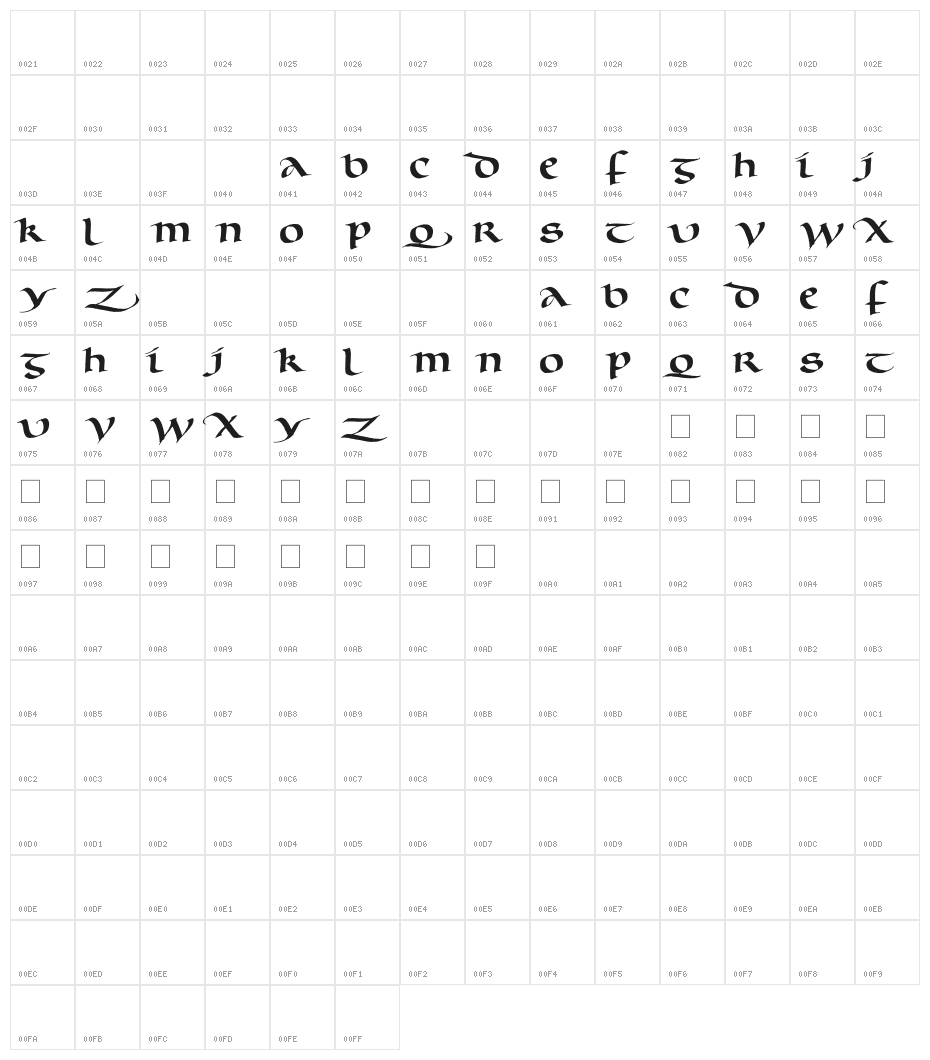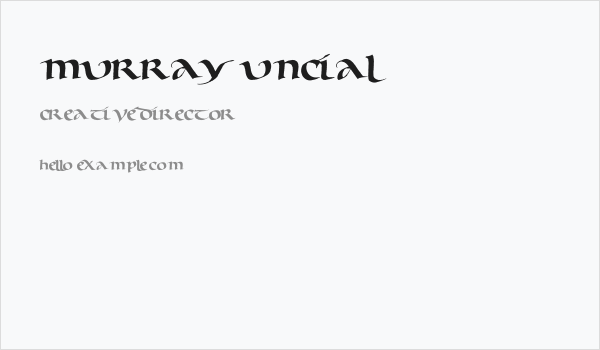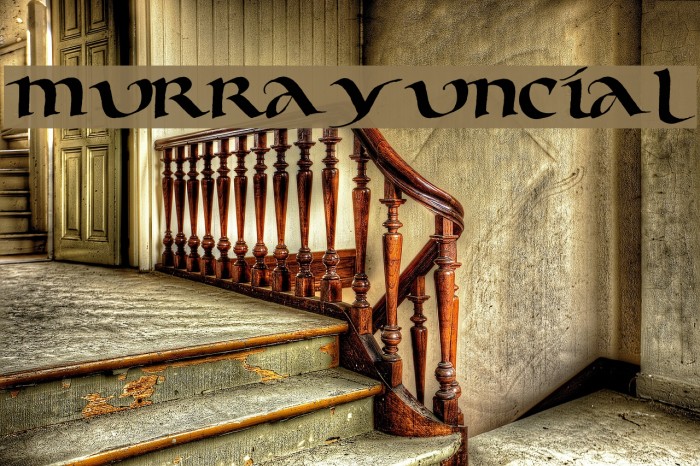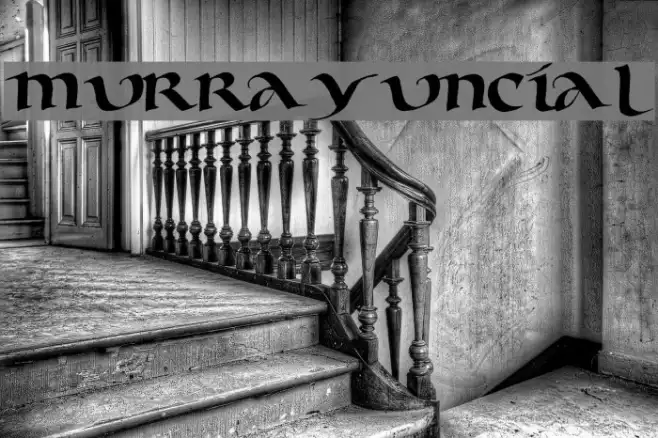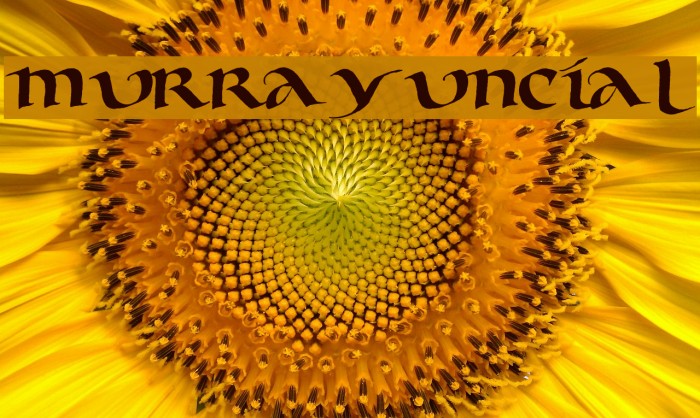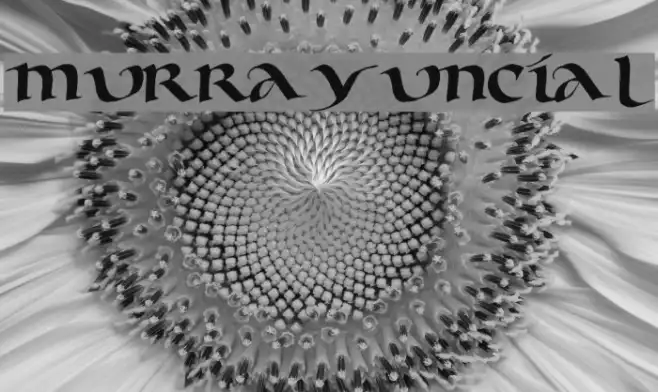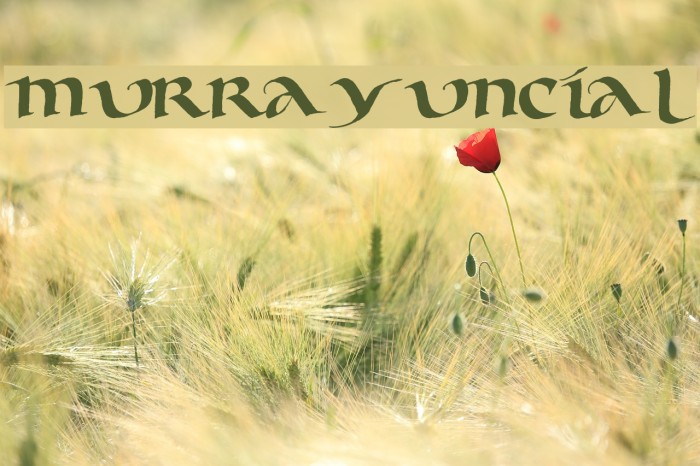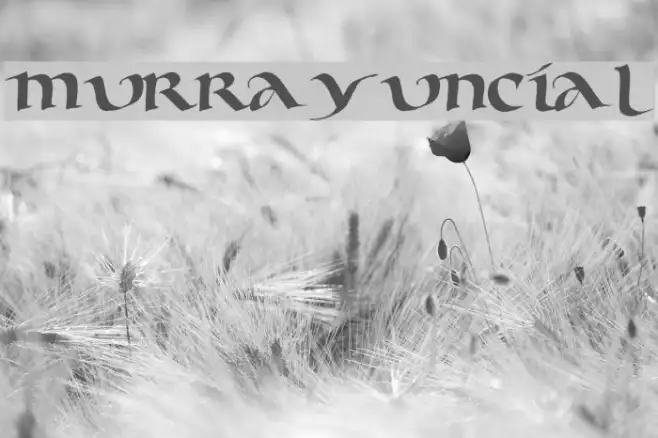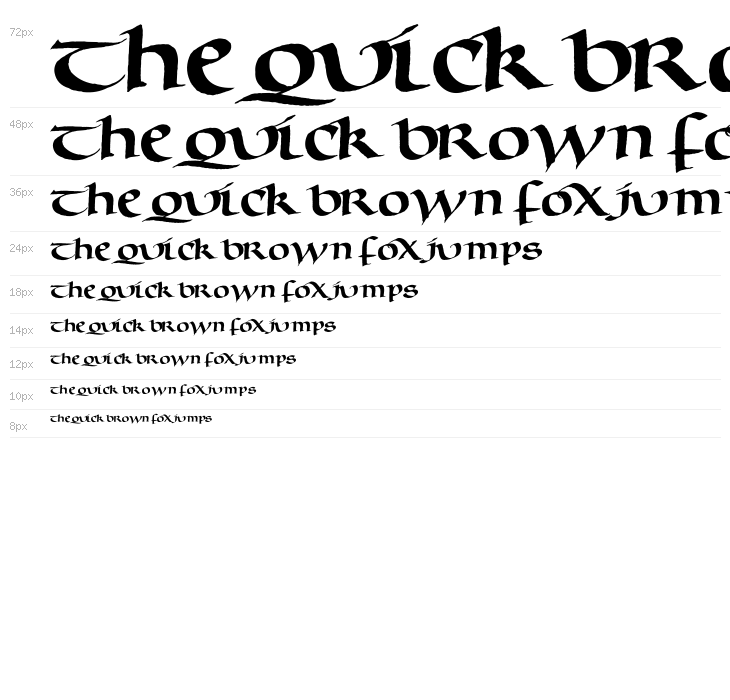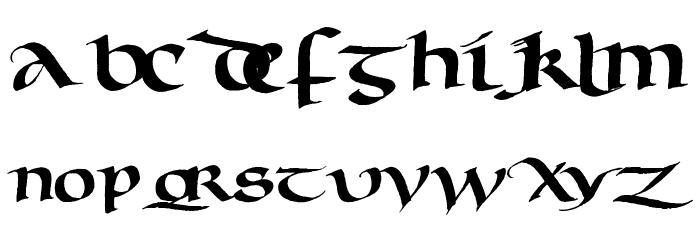
Murray Uncial Font
Murray Uncial Description
This font features a distinctively medieval and calligraphic style, reminiscent of traditional uncial scripts. The characters are bold and have a strong presence, with thick strokes and sharp angles that give them a dramatic flair. The uppercase letters are particularly ornate, with sweeping curves and pointed serifs that enhance their decorative appeal. The lowercase letters maintain a consistent style, with a slightly more restrained design that complements the uppercase set. This font's unique aesthetic is ideal for projects that require a historical or fantasy theme, offering a sense of antiquity and elegance.
| Use Case | Headlines, Logos, Decorative text |
| Proposed Projects | Ideal for historical or fantasy-themed designs, book covers, posters, and branding that requires a touch of antiquity. |